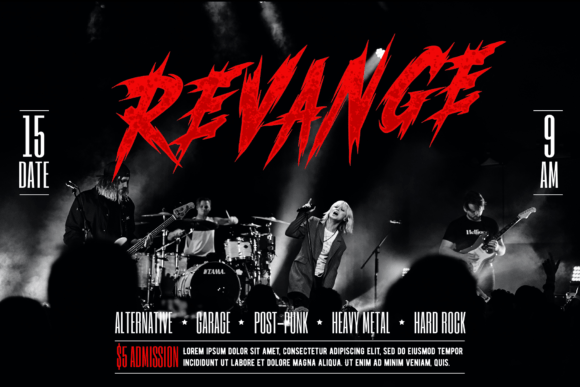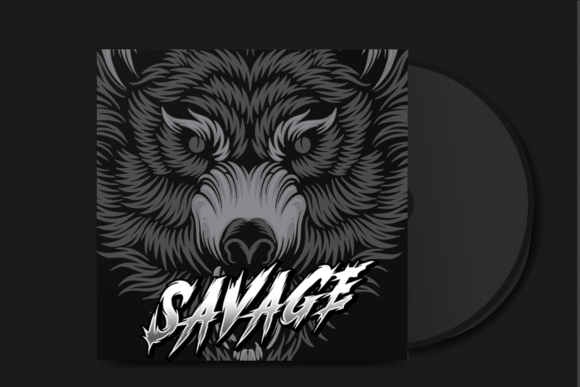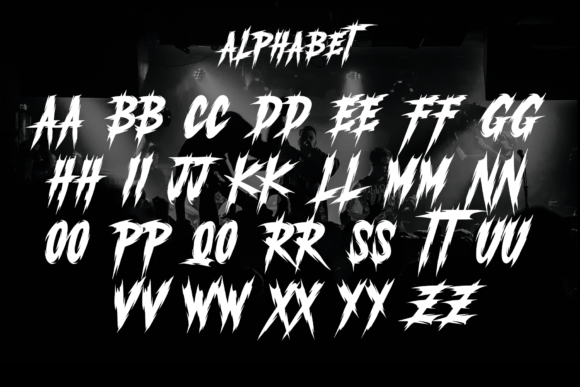
Traxtor Font
Traxtor is a distinct, highly detailed, horror font. It would be a great choice for exquisite retro-urban designs, tattoo business branding, logos, vintage designs, and more.